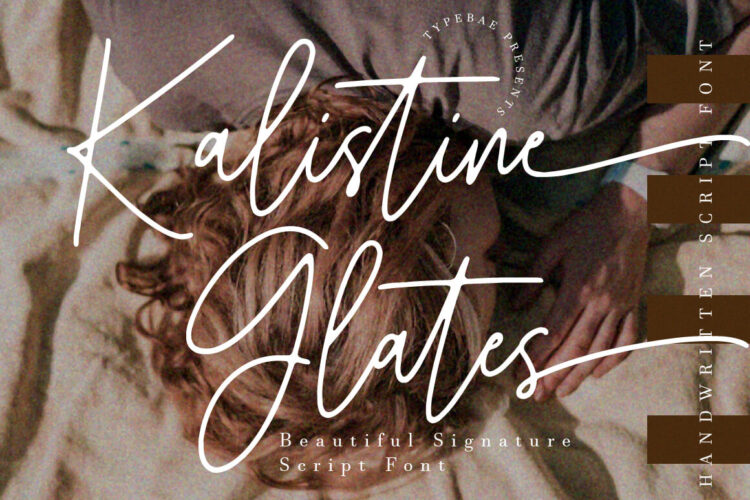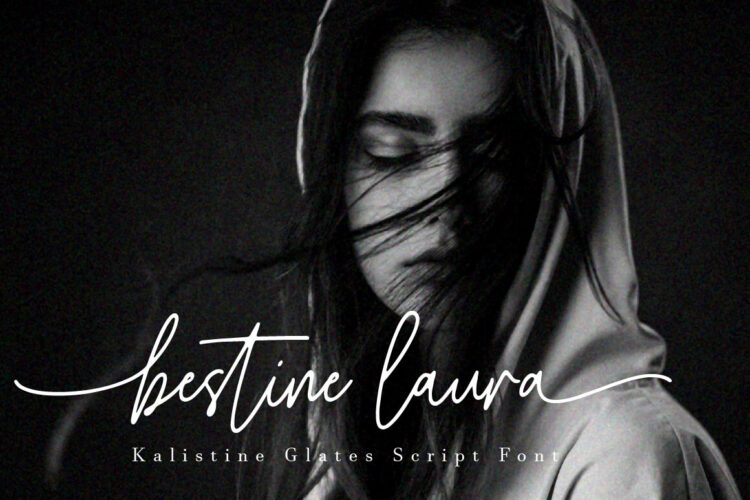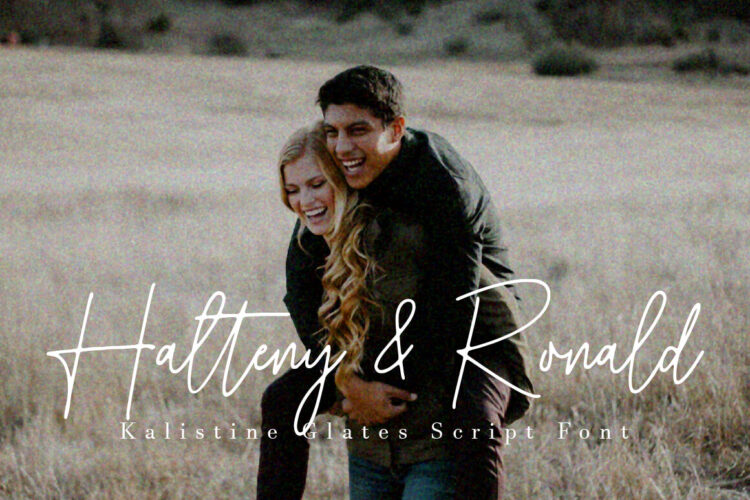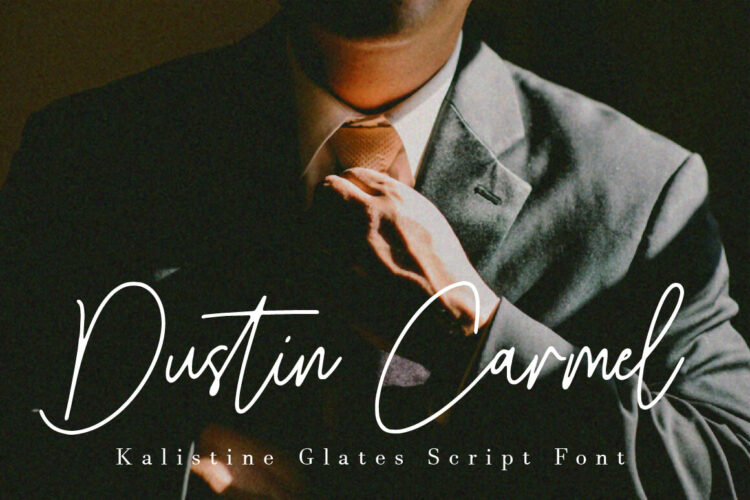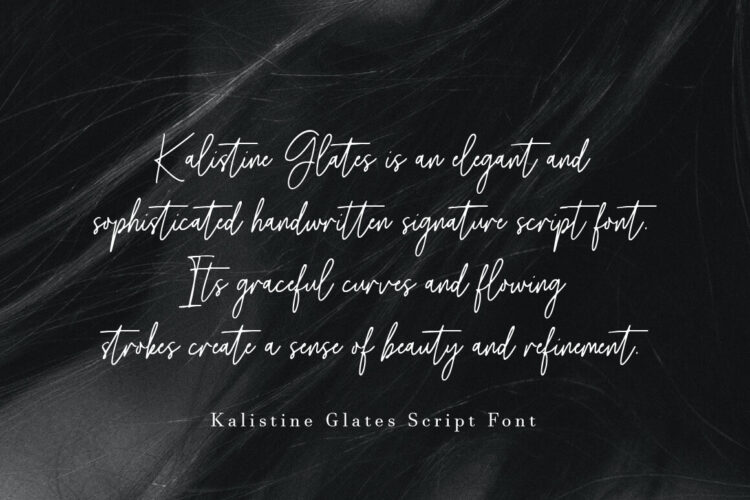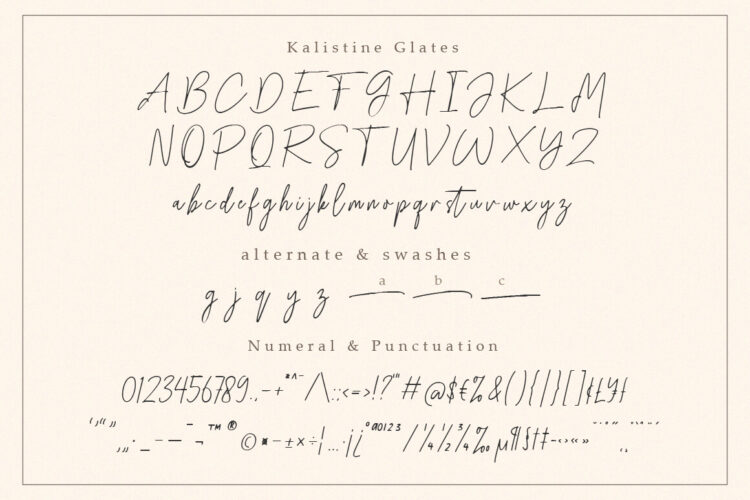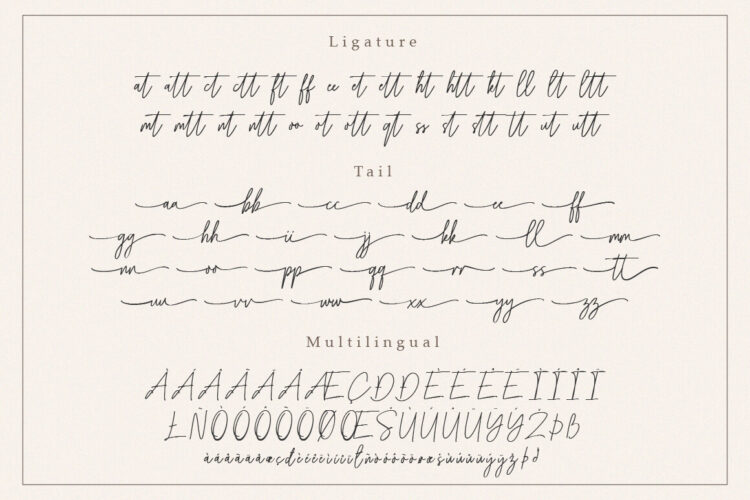
Handwritten Script Font,
Kalistine Glates is an elegant and sophisticated handwritten signature script font. Its graceful curves and flowing strokes create a sense of beauty and refinement. With its unique and personalized touch, Kalistine Glates adds a touch of sophistication to any design project, be it wedding invitations, branding materials, or elegant packaging.
To use beginning and ending swashes (tail), you don’t need to use software that supports opentype, because we have made it separately so it’s very easy to use.
• Ligature & Tails
Kalistine Glates – Handwritten Script Font with Tails